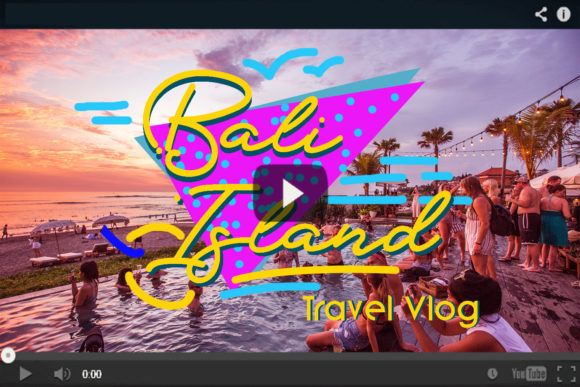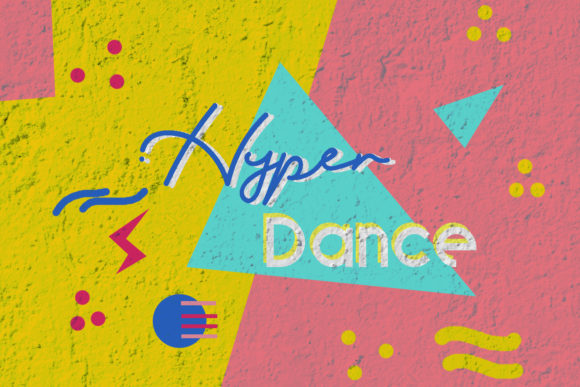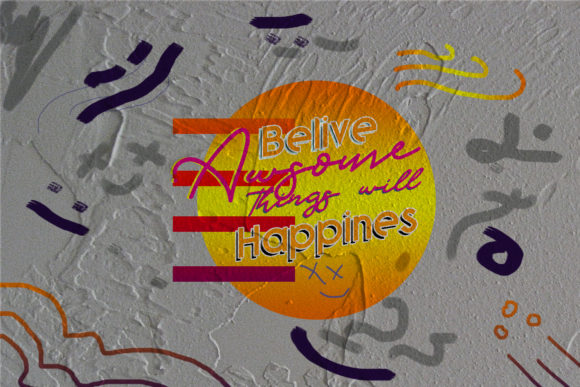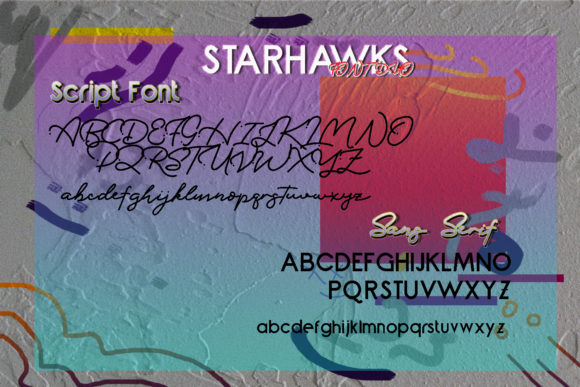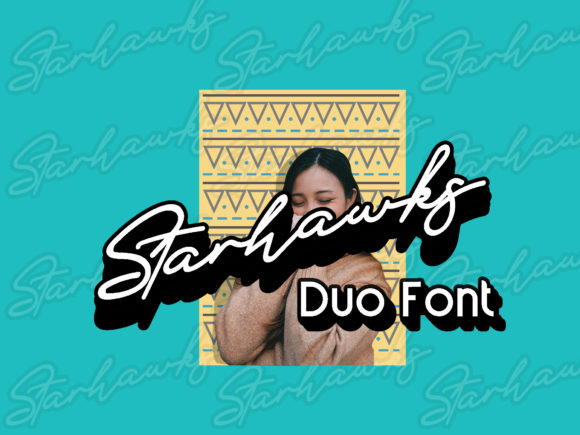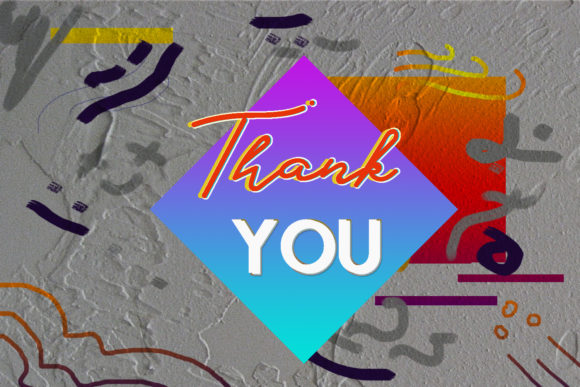
Starhawks Duo Font
Inspired by the iconic designs of The Memphis Group, Starhawks is a playful, yet elegant handwritten font. This stunning font duo will effortlessly turn any design idea into a stand out!